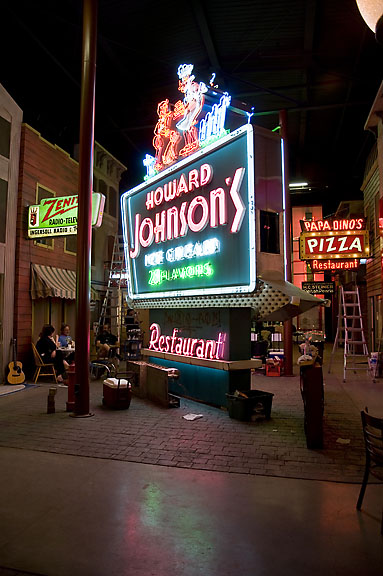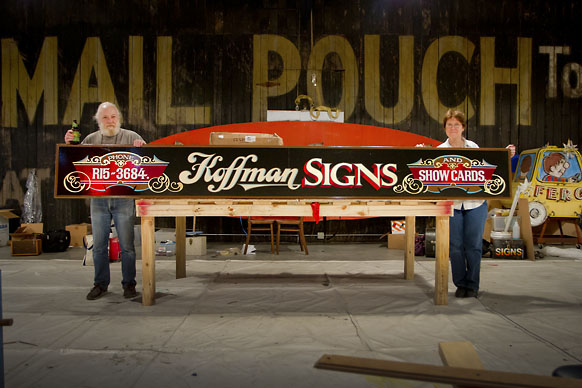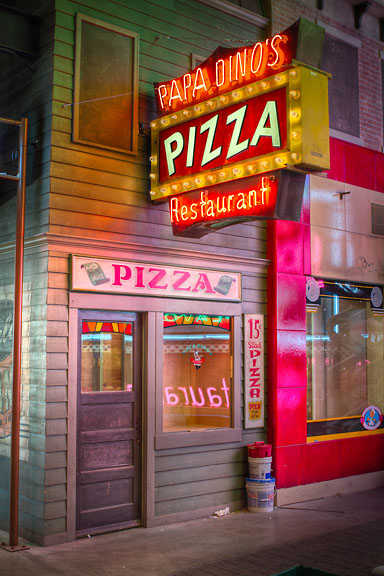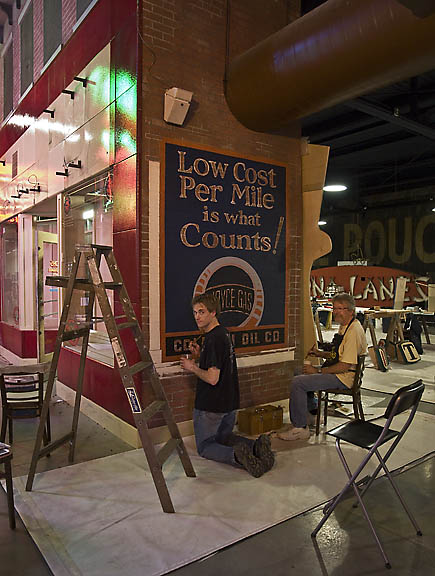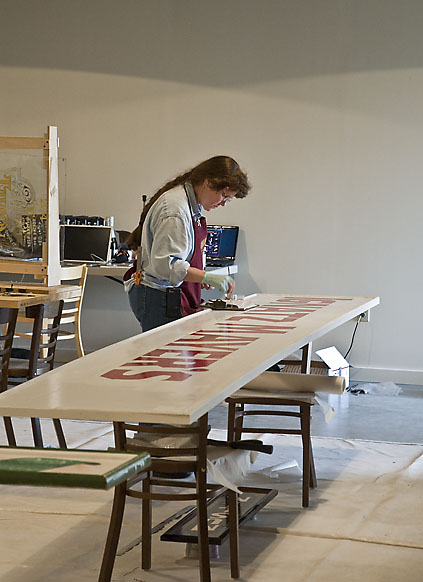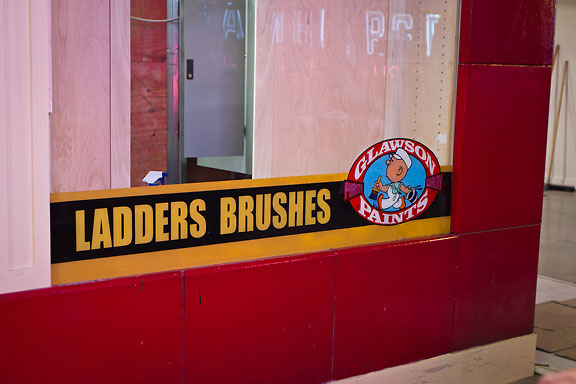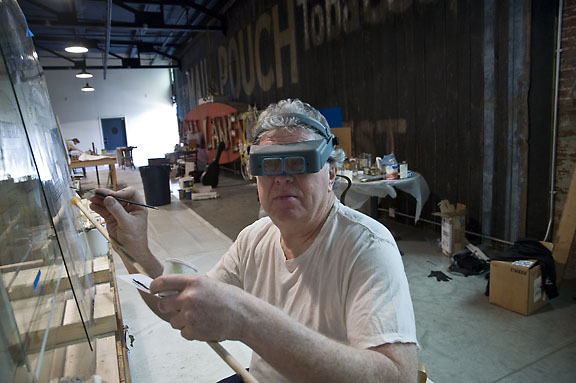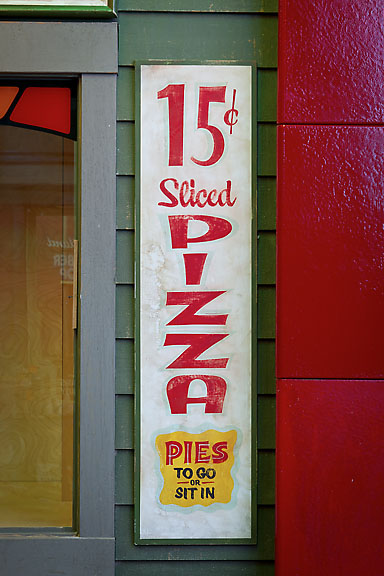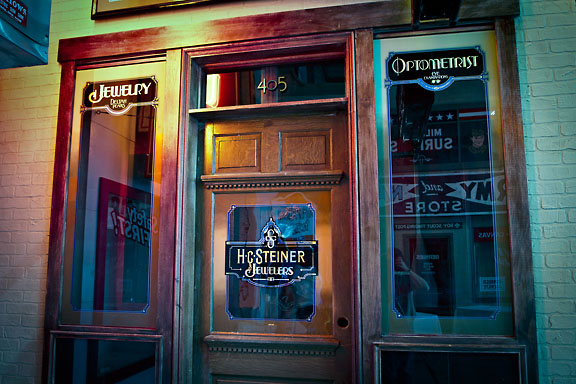
American Sign Museum
Hi all....Just got back from seeing the American Sign Museum's grand opening in Cinci this past weekend, and had a few things that might be of interest.
When I was there in March to help "flesh out" the Main Street section with assorted signs of all kinds it was quite different. Display cases in various forms and stages of construction and people busying themselves with neon repairs and installations of all sorts going on.
This past weekend though, I was amazed to see all matter of things I'd only seen in trade magazines, but never in the flesh. Sample kits (and actual kits) of veterans like Steven Parish and Raymond LeBlanc displayed in these same cases. Rick Glawson,s fine collection of the Brooks sample album as well as the grand pieces of Rawson and Evans that adorned his walls those few (seem's like ages) years ago. The Brook's work was shown in a way that you could turn the pages and see them as they were produced in safe individual slots within a display case. When I first saw them, after he'd had 'em for only a few weeks, they were still in the album and were referred to as the "Rosetta Stone" of 19th century glass work.
When there in March things were organized in a way that as a whole, it was"a Team". No superstars, only hard working craftsmen/women, doing a big job on a tight schedule. Team is the operative word. A hand full of us were picked by the Butler's and Tod Swormsted to put together a concept for 1 of the buildings on the Main Street promenade. Here existing neon and "can" signs would be displayed but the rest of the building had to be "fleshed out" as it would have existed many years ago. The windows were decorated as seen fit but they were actually display cases for the many assorted items mentioned earlier. The rest of the team were work horses needed to get the "whole" done......you know "Outline this.....put a shade on that" and "after you finish with Noel Weber I could use a hand getting....." just the many this or that's done.
My part was a bar with 2 signs already for it Named Ignatz Mayer's Tavern. I got an elevation in my mail which gave me dimensions and positions of the existing signs. The rest was up to me as long as it was "family oriented" and fit the target period which in my case was mid 40's to mid 50's. After reviewing some old photos in my morgue I noticed many of the building had various other tenants on the upper floors and decided there needed to be a signshop up there. Between David and I we picked the name of old mentor and ran with it. There are a few great tribute's hidden away in there and I'll leave the many secret ones to others to discover or describe.
We roomed together and each group got to and from the site (museum to be) as a group...all with getting the job done as first priority. I bunked with Gregg Heger (Boston) and rode daily with Jeff Lang, Heger, and Gary Godby. Now.....having said all that, I'm also proud to admit that at 60 plus yrs.old, I, and a few accomplices, managed to close a pub every night, get showered (not shaved) and be at the restaurant (our daily morning meeting place) for 7or 8am everyday. I did lose my voice on the second day (thanx to 1 of my accomplices Sonny Franks) whom I'd only just met.
It would be a mistake to think this was a list of the top 22 or so in the business. I think more it was list of 22 people needed to get the job done and work as a team towards that goal. Besides....there were far too many of the "top" craftsmen/women missing for that to be the case. All said it was some of the most fun I've had in a long time with my clothes on and hope you all enjoy some of the photos here as well as make a point to see the Museum for yourselves.
Just a couple more photos as well as mentioning that Gary's project Pizza Shop was done in same colours that Coca Cola used to use in their outdoor advertising back in the 60's. Took me right back there in time. Also most of the photos here were from Dave McDonald who not only managed a PILE of work but some great pics as well!